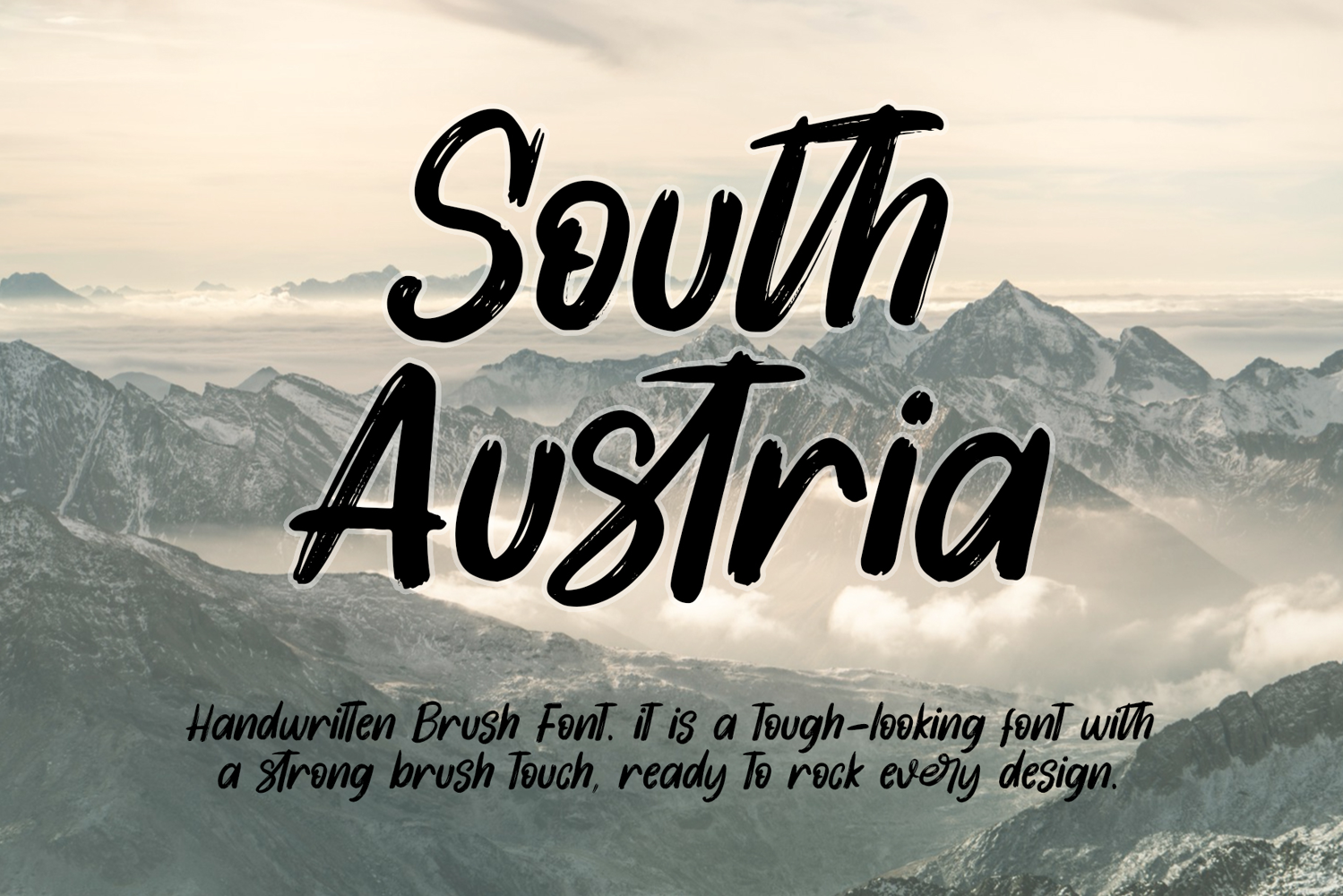
South Austria
South Austria – Handwritten Brush Font is a bold and expressive brush-style typeface created to bring a rugged, energetic, and handcrafted character to your designs.
With its strong brush strokes, dynamic letterforms, and authentic handwritten appearance, South Austria is perfect for designs that need a raw, adventurous, and contemporary feel. Its distinctive style works especially well for outdoor branding, adventure projects, apparel, posters, logos, and eye-catching typography.
Whether you're designing for a mountain adventure brand, travel project, streetwear collection, outdoor merchandise, posters, or social media artwork, South Austria adds a powerful handmade touch that helps your typography stand out.
- Outdoor & Adventure Branding
- Travel & Tourism Designs
- Mountain & Hiking Projects
- T-Shirt & Apparel Design
- Logos & Branding
- Posters & Headlines
- Badges & Emblems
- Stickers & Merchandise
- Sports & Lifestyle Graphics
- Social Media Designs
- Album & Cover Artwork
- Packaging & Product Design
South Austria is a versatile choice for designers looking for a bold, rough, energetic, and authentic handwritten brush font with a strong visual personality.